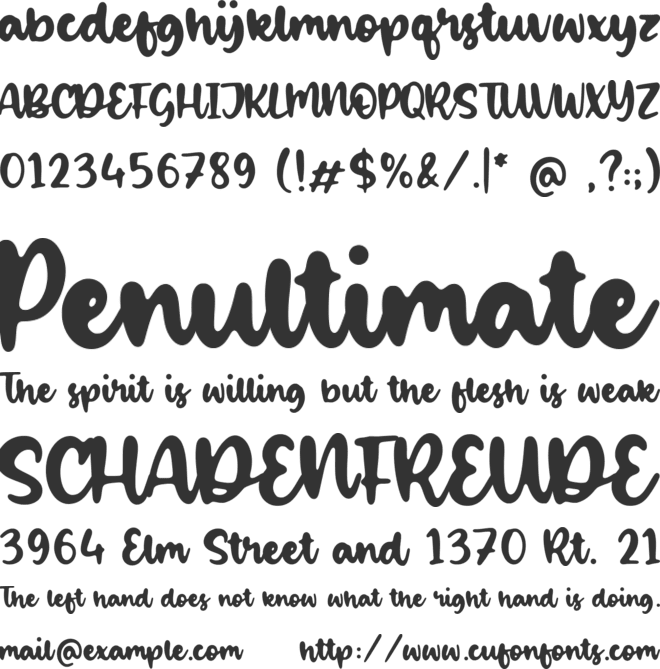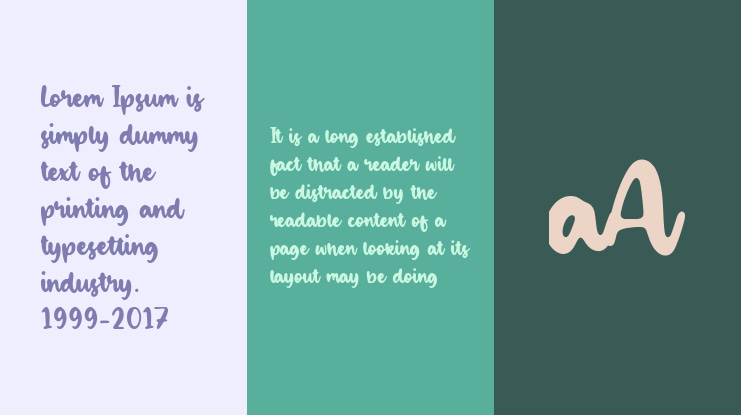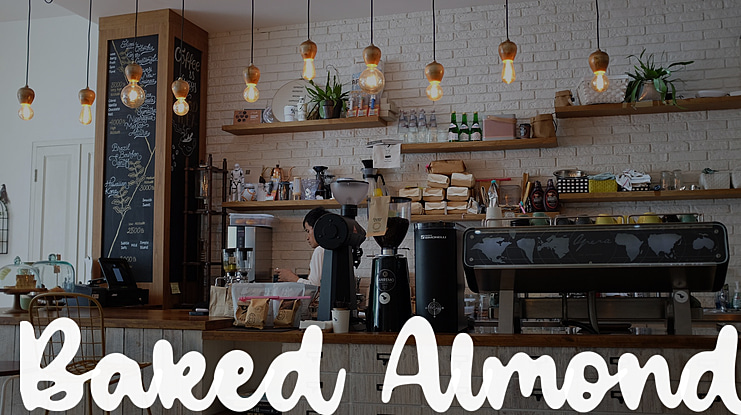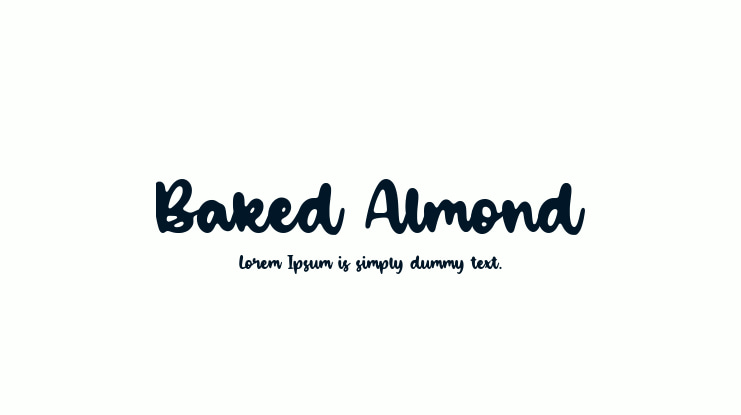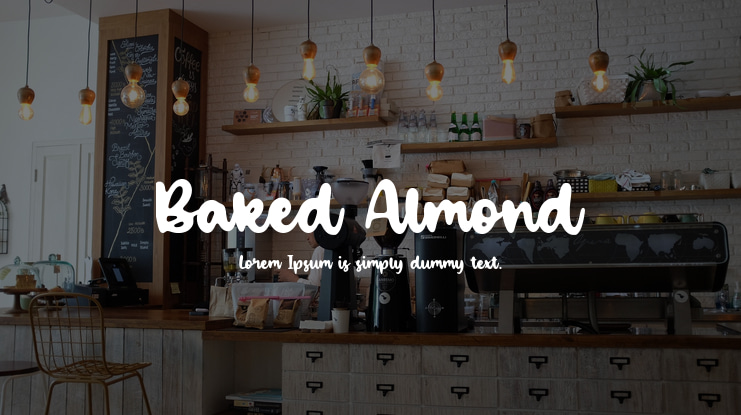
Baked Almond Font
Introducing by Balpirick Studio.
Proudly Present, Baked Almond Font.
Baked Almond is a Modern Bold Handbrushed Font.
Baked Almond is perfect for product packaging, branding project, megazine, social media, wedding, or just used to express words above the background.